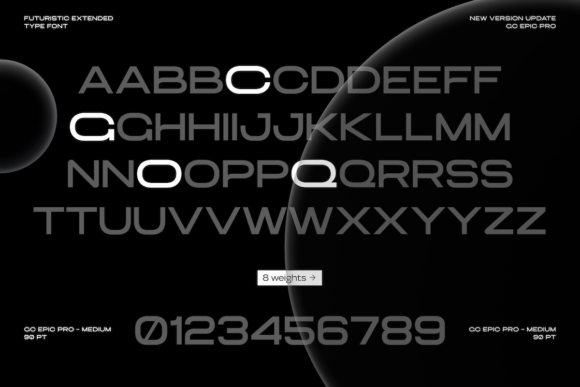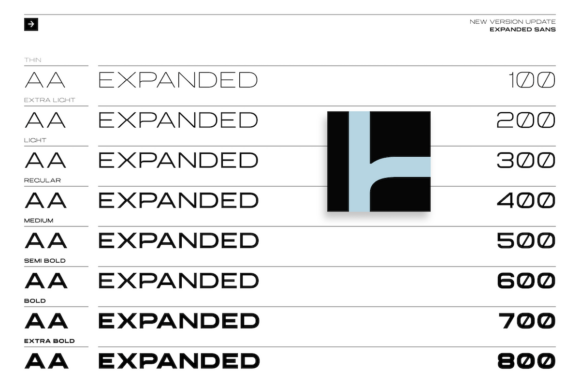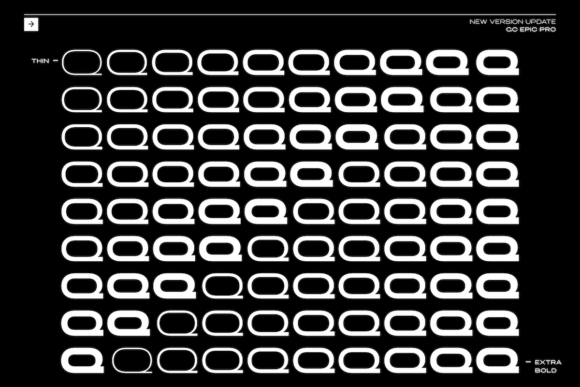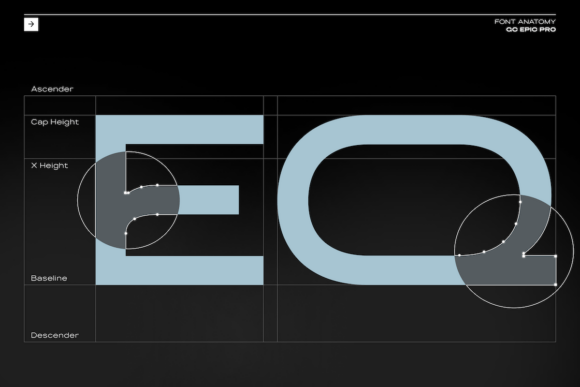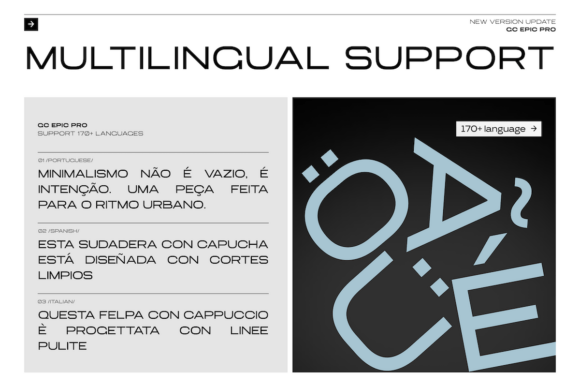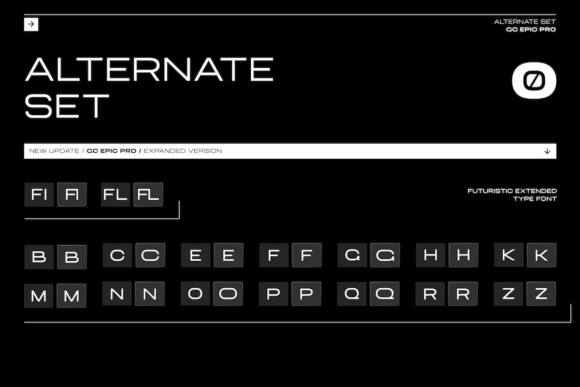
Introducing GC EPIC PRO Vol. II – The Future of Extended Sans Serif Typography
The wait is over for typography enthusiasts and designers alike! The highly anticipated **GC EPIC PRO Vol. II – Future Extended Sans** has arrived, marking a significant milestone in the evolution of the EPIC PRO typeface. This latest update builds upon the original concept, introducing a more comprehensive family system and refined glyph construction. The result is a versatile and precise typeface, perfectly suited for contemporary and future-facing design projects.
A New Era of Typography: Expanded Family System
GC EPIC PRO Vol. II takes the extended sans serif structure that made its predecessor a favorite among designers and elevates it to new heights. The expanded family system offers a broader range of styles, allowing designers to create complex visual hierarchies and cohesive brand systems with ease. With its improved proportions and smoother weight distribution, this typeface ensures consistency and precision across various design applications.
Refined Glyph Construction: Enhanced Legibility and Balance
Key glyphs in GC EPIC PRO Vol. II have been meticulously reworked to enhance balance, legibility, and visual rhythm. The careful refinement of these essential characters ensures that the typeface performs exceptionally well in both bold display settings and functional layouts. This attention to detail makes it an ideal choice for designers seeking a typeface that can adapt to various design requirements.
Unleashing Creative Potential: Futuristic Character and Wide Letterforms
GC EPIC PRO Vol. II boasts a futuristic character, characterized by wide letterforms and confident geometry. This distinctive aesthetic makes it perfect for branding systems, headlines, posters, editorial compositions, and modern digital interfaces. The typeface’s unique personality injects a sense of dynamism and forward-thinking into any design project, allowing creatives to push boundaries and explore new ideas.
Design Possibilities: Where Function Meets Style
The versatility of GC EPIC PRO Vol. II empowers designers to create a wide range of visual systems, from clear and concise messaging to complex, layered compositions. Its expanded family and precision-crafted glyphs enable designers to:
- Create clear visual hierarchies and information architectures
- Develop cohesive brand systems and identity programs
- Craft compelling headlines, posters, and editorial layouts
- Design modern digital interfaces with confidence and precision
What Sets GC EPIC PRO Vol. II Apart?
So, what makes GC EPIC PRO Vol. II an exceptional choice for designers and crafters? Here are a few key takeaways:
- Extended sans serif structure: A unique and distinctive aesthetic that sets it apart from other typefaces
- Expanded family system: Offers greater flexibility and precision for complex design projects
- Refined glyph construction: Enhances balance, legibility, and visual rhythm
- Futuristic character: Injects a sense of dynamism and forward-thinking into design projects
GC EPIC PRO Vol. II – Future Extended Sans marks a significant milestone in the evolution of the EPIC PRO typeface. With its expanded family system, refined glyph construction, and futuristic character, this typeface is poised to become a go-to choice for designers and crafters seeking a versatile and precise solution for their design projects. Whether you’re working on branding systems, headlines, posters, or digital interfaces, GC EPIC PRO Vol. II is the perfect tool to unlock your creative potential and push the boundaries of typography.
Experience the future of typography today and discover the limitless possibilities of GC EPIC PRO Vol. II.